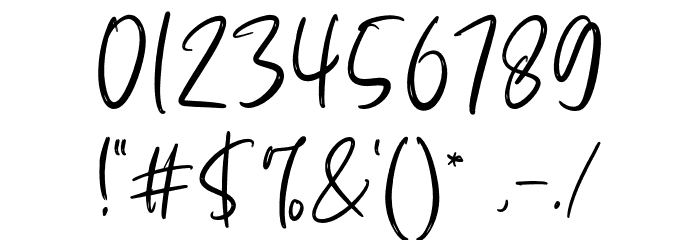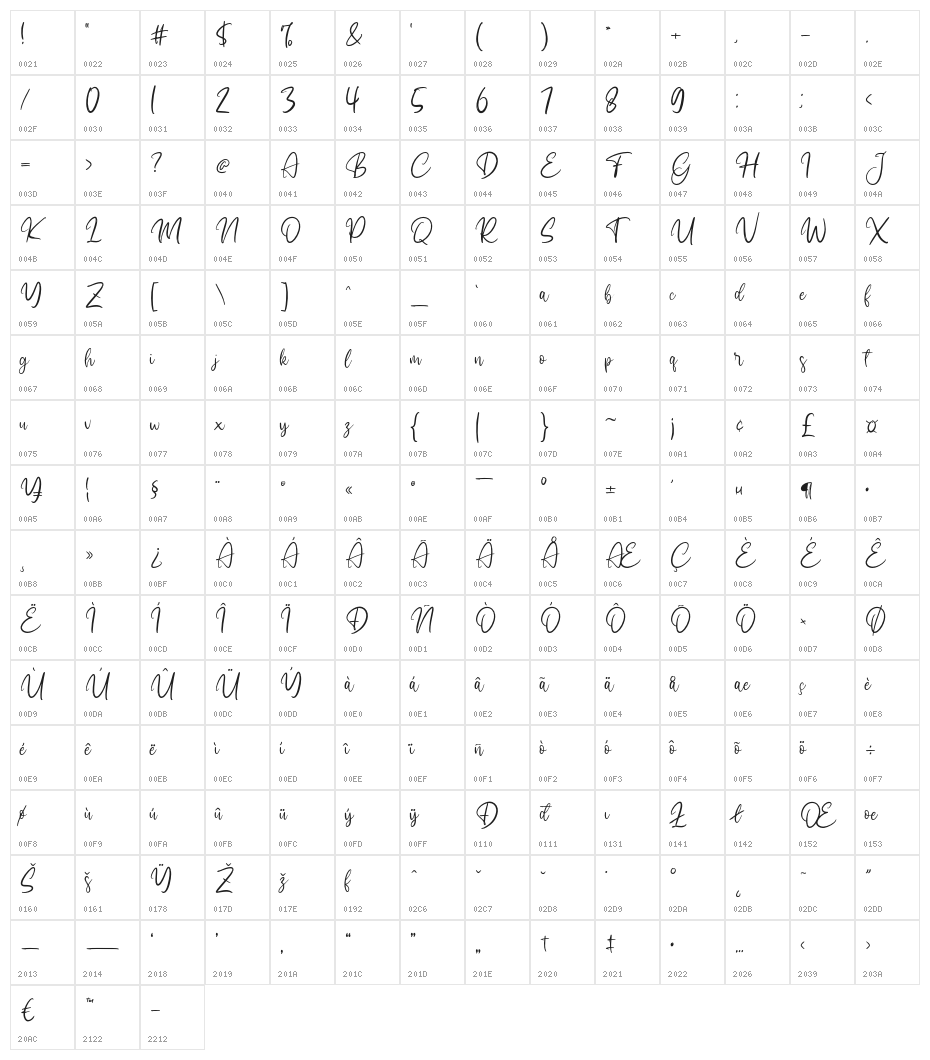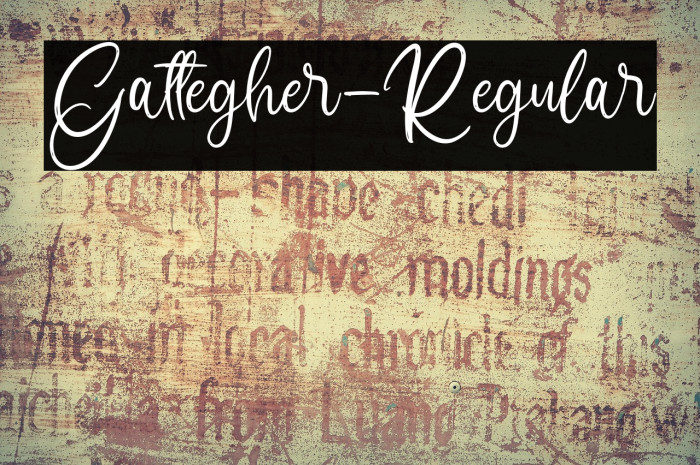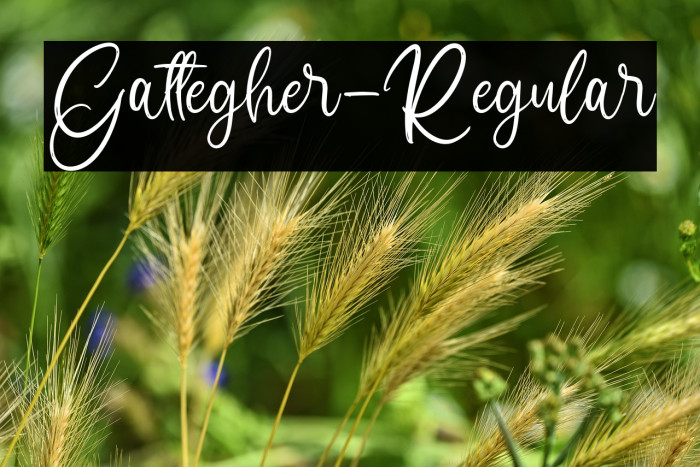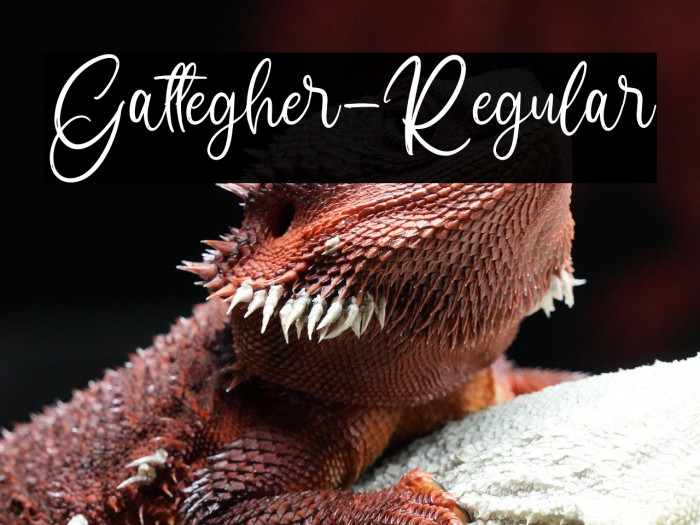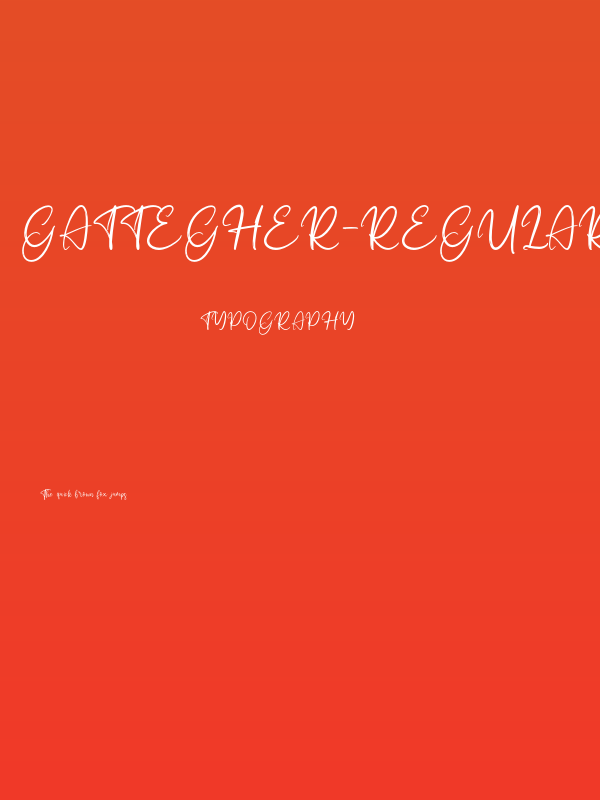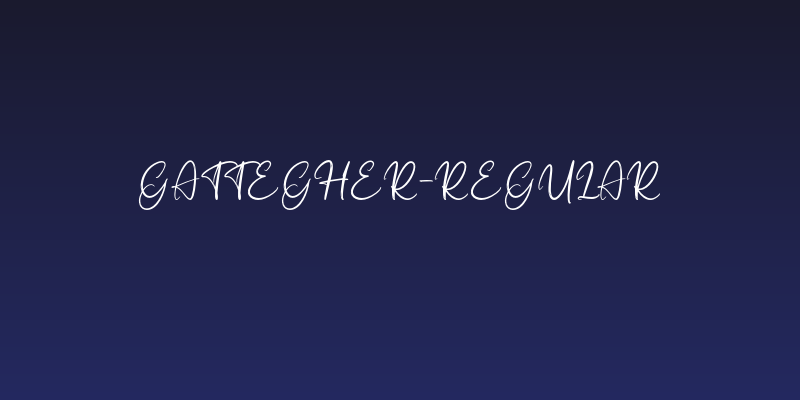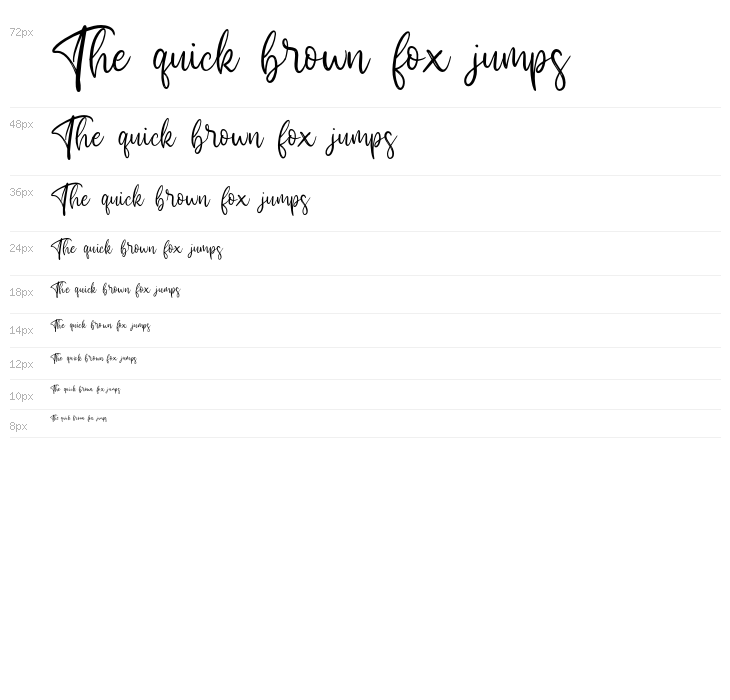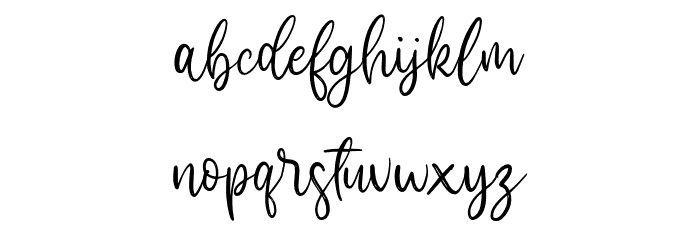
Gattegher-Regular Font
Gattegher-Regular Description
This font features a flowing, cursive style that exudes elegance and sophistication. The uppercase letters are characterized by their sweeping curves and fluid strokes, giving them a graceful appearance. The lowercase letters maintain a consistent rhythm, with smooth connections between characters that enhance readability. Numbers and special characters are crafted with the same attention to detail, ensuring a cohesive look across all elements. The overall design is both stylish and versatile, making it suitable for a variety of creative projects.